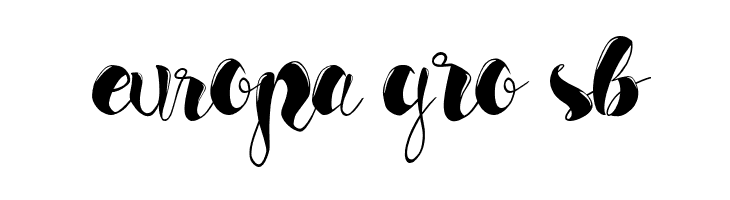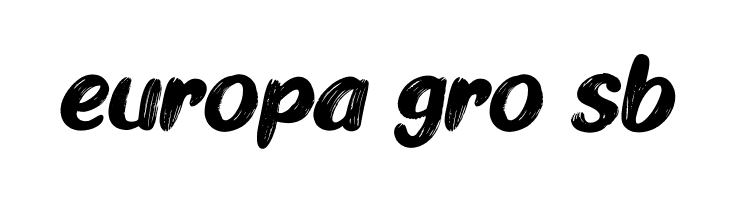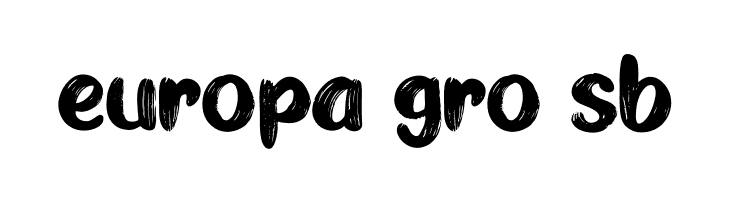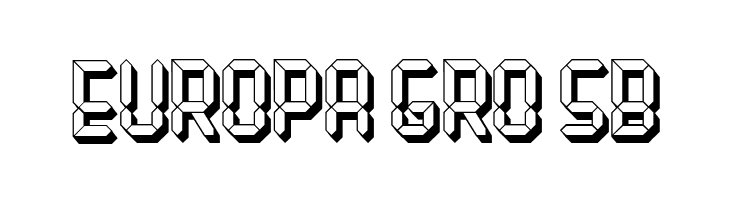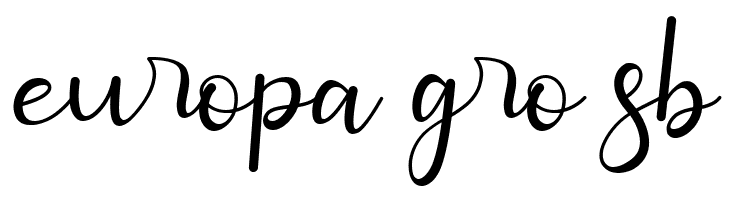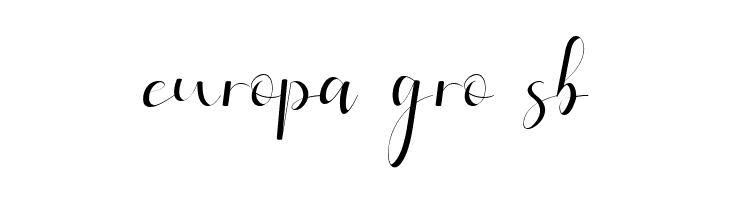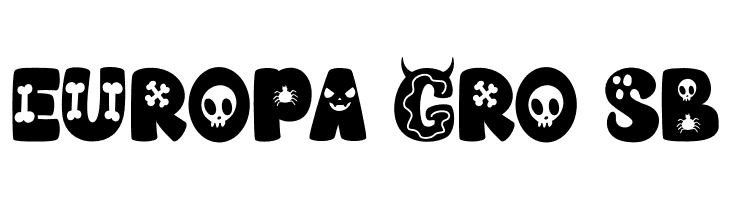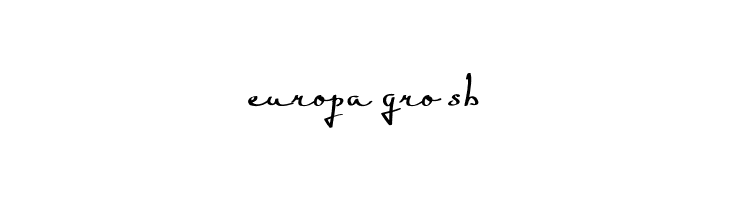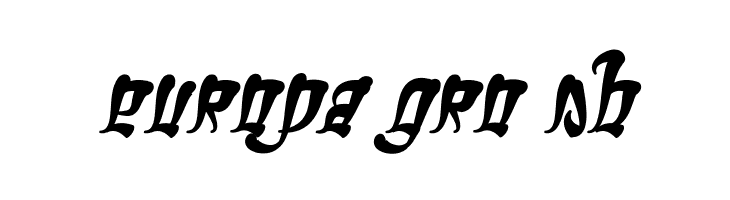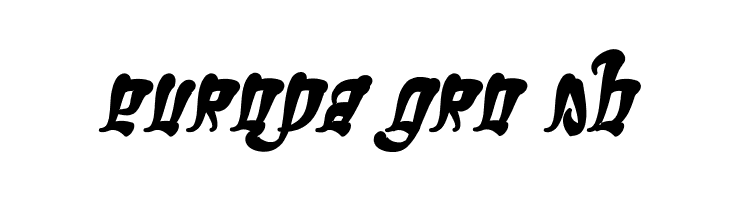
A bold, dramatic script font with intricate curves and flourishes.
A bold, dramatic font with a flowing, cursive-like style and urban flair.
A bold, brush-stroke style font with an artistic and handcrafted appearance.
A bold, italic brushstroke font with dynamic, textured letters.
An elegant and decorative script font with flowing, intricate letterforms.
A bold, playful font with Halloween-themed elements and rounded characters.
A dynamic, handwritten font with expressive curves and fluid strokes.
An elegant, cursive font with dynamic strokes and artistic flourishes.
A graceful and flowing script font with a handwritten style.
A bold, geometric font with a hollow, three-dimensional appearance.